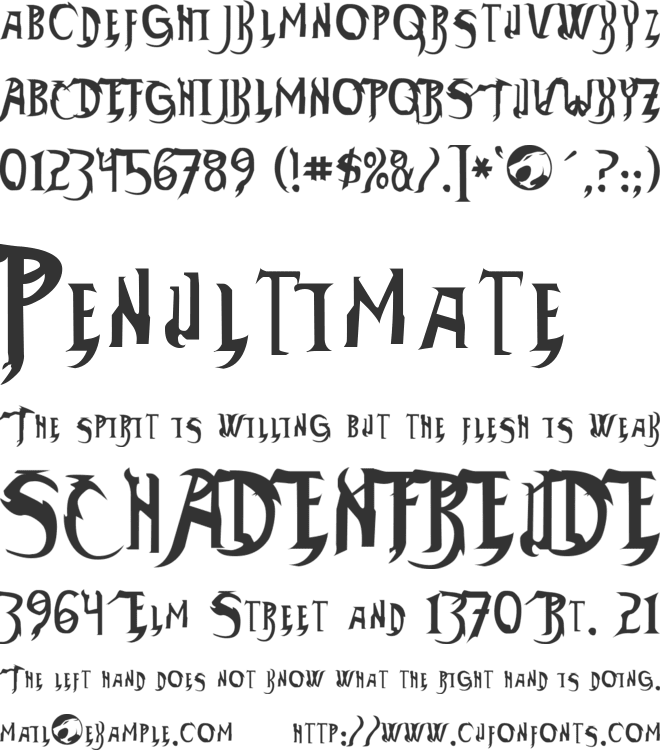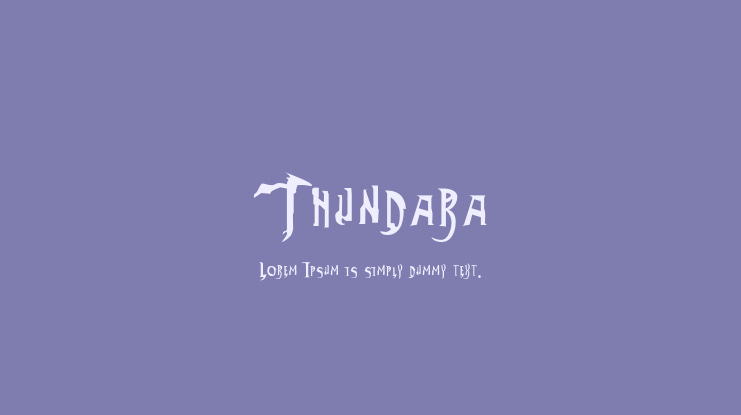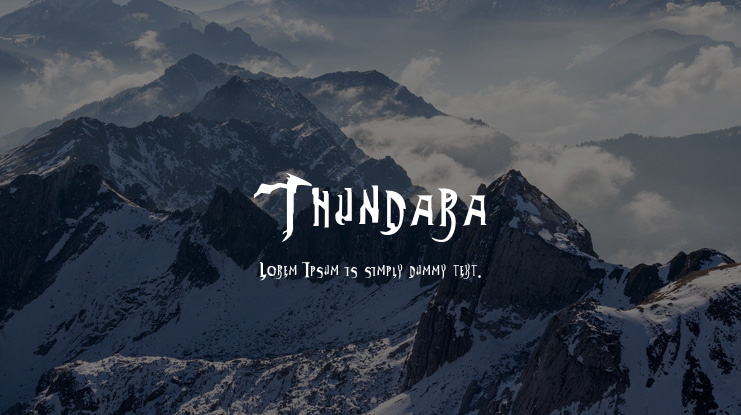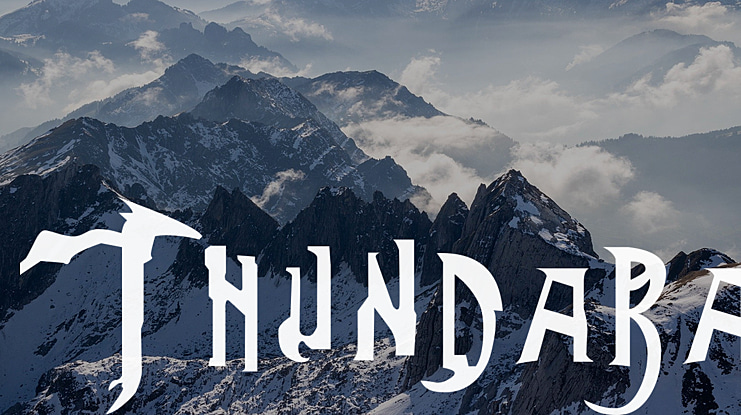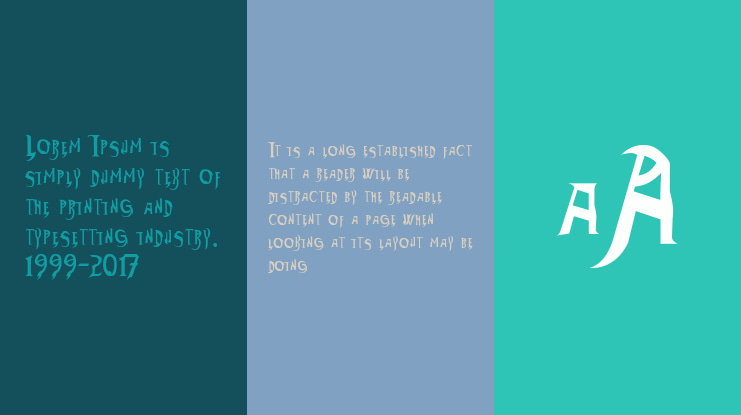
Thundara Font
Neale Davidson
This jagged, stylistic typeface is based on the 1980's Thundercats cartoon series and toyline logo. Includes full alphabet.